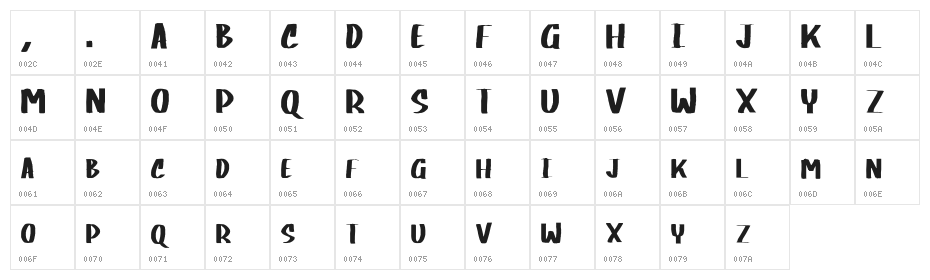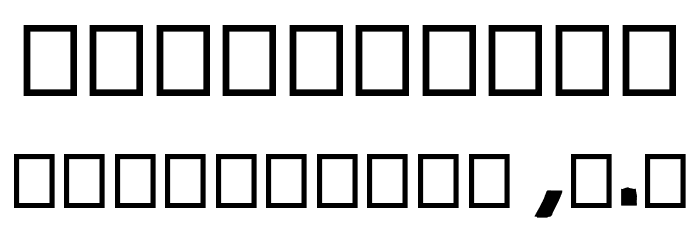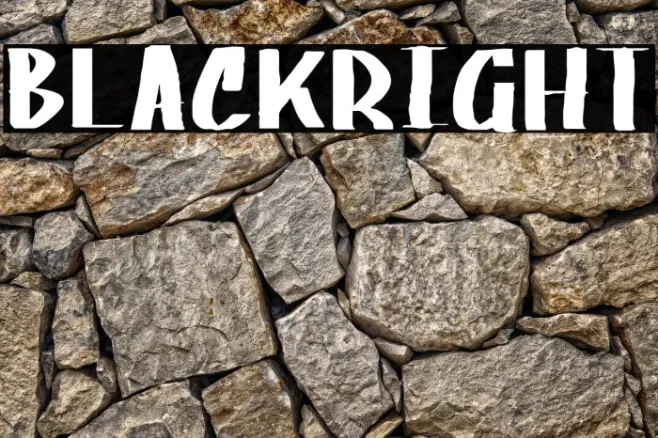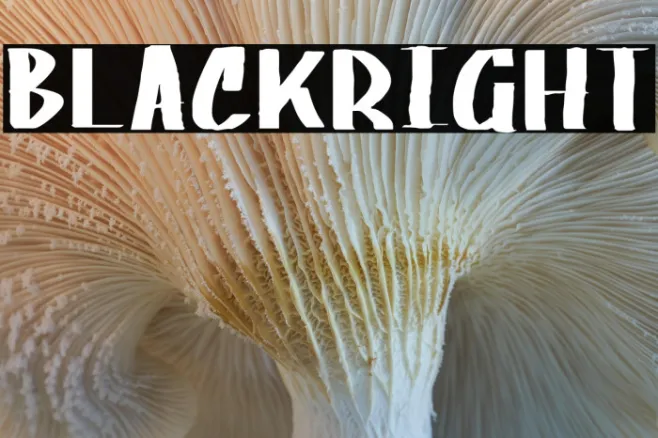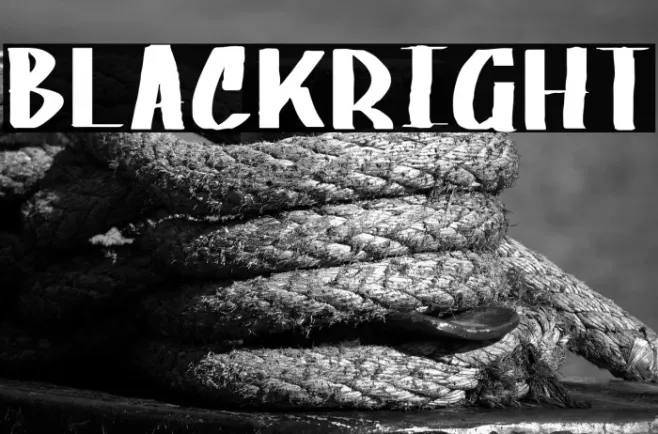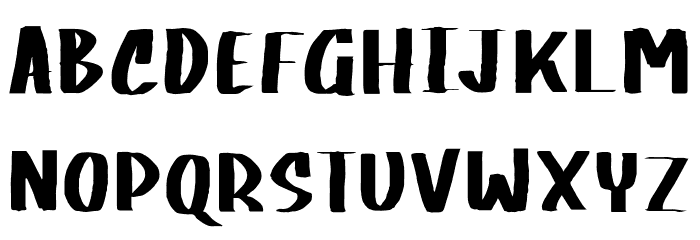
BLACK_RIGHT Font
BLACK_RIGHT Description
This font features a bold and dynamic style with a brush-like appearance, giving it a handcrafted and artistic feel. The uppercase letters are characterized by thick strokes and sharp angles, creating a sense of movement and energy. The design is consistent across the alphabet, maintaining a cohesive look that is both striking and visually appealing. The absence of lowercase letters and numbers suggests a focus on impactful headlines or titles. The font's unique style makes it suitable for creative projects that require a bold statement.
| Proposed Projects | Ideal for posters, logos, branding, and any design needing a bold, artistic touch. |